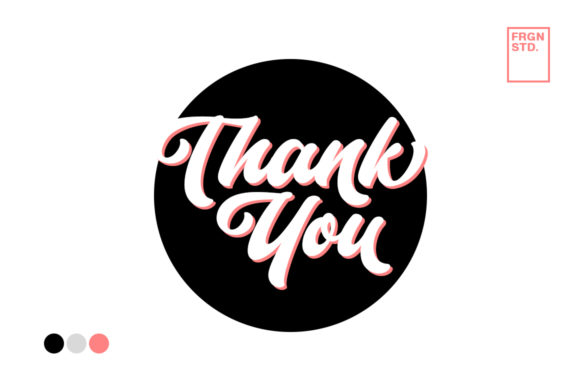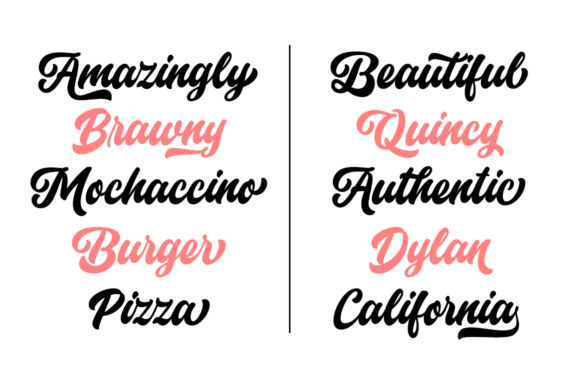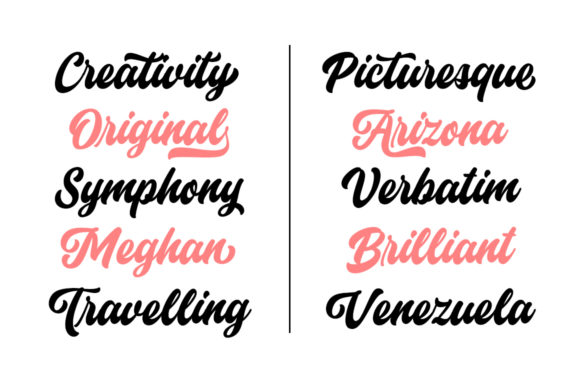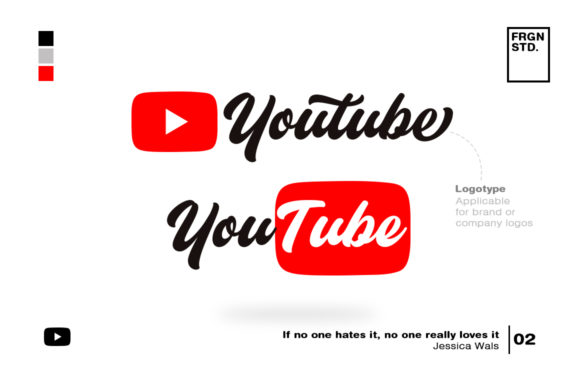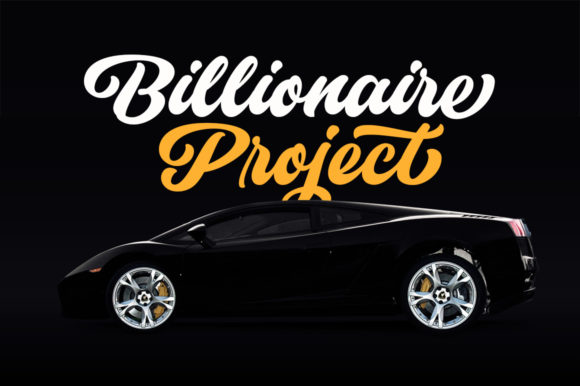
About Historia Font
Historia is a sweet, soft hand-lettered script. The playful rounded characters make it the perfect font for creating stunning calligraphy-inspired art. Historia comes packed with stunning glyphs, which will allow you to add a decorative touch within seconds. It comes in both OTF and TTF. Get inspired by its authentic feel and use it to create gorgeous wedding invitations, beautiful stationary art, eye-catching social media posts, and cute greeting cards.